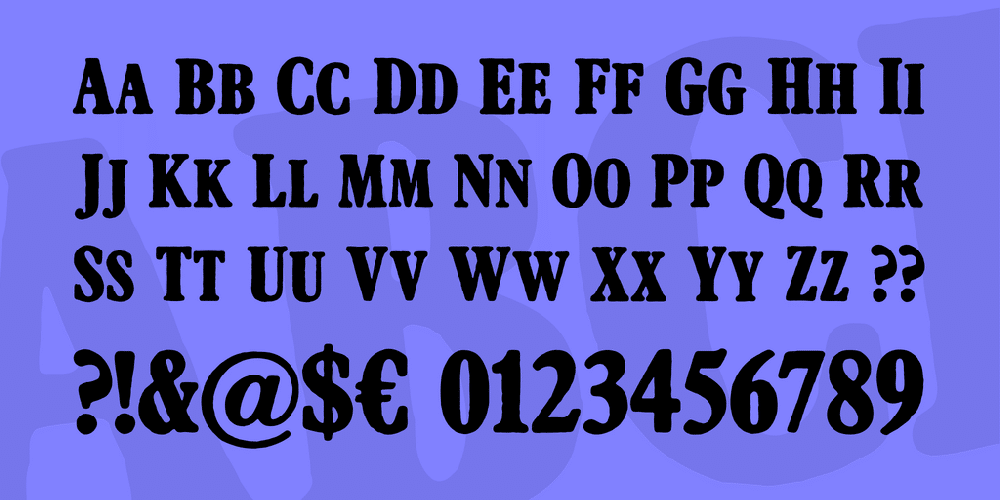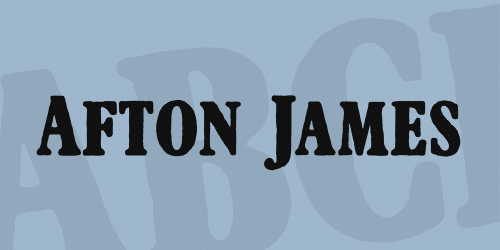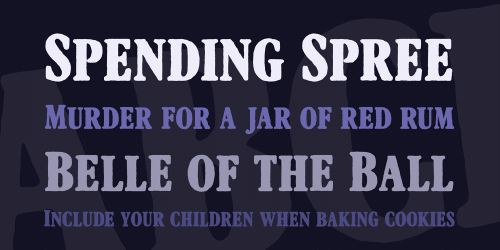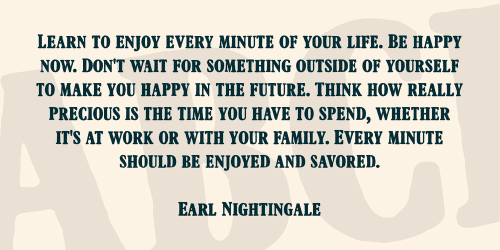
Afton James Font
“Afton James” is the nickname of a mariner on heaven’s grave (see Uresia: Grave of Heaven), who brags openly that his sheltered port is on the lost Isle of Afton. This font, named for him, is a full U.S. keyboard set with a couple of the usual extras and quite a lot of careful kerning, so please try it in kerning-supported software to see it at its best. Enjoy!